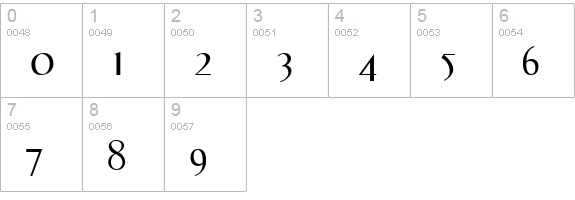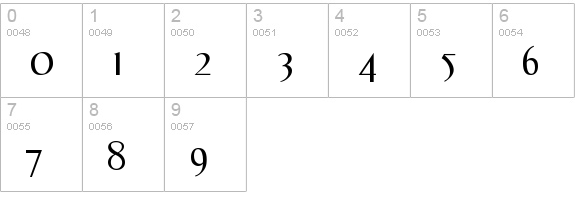
Dream Orphans font is a unique and elegant typeface that combines modernity with a touch of nostalgia. Its graceful curves and distinctive letterforms make it a versatile choice for a wide range of design projects, from logos to invitations to branding materials. The font's soft serifs and flowing lines give it a timeless and sophisticated look that will make your text stand out. What's even better is that Dream Orphans font is completely free to download at FontsMarket.com. Whether you're a designer looking to add a new font to your collection or someone in need of a stylish typeface for a personal project, Dream Orphans is the perfect choice. Download it today and elevate your designs with this beautiful and accessible font.